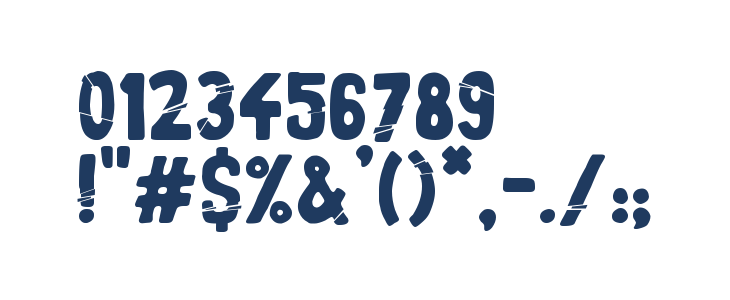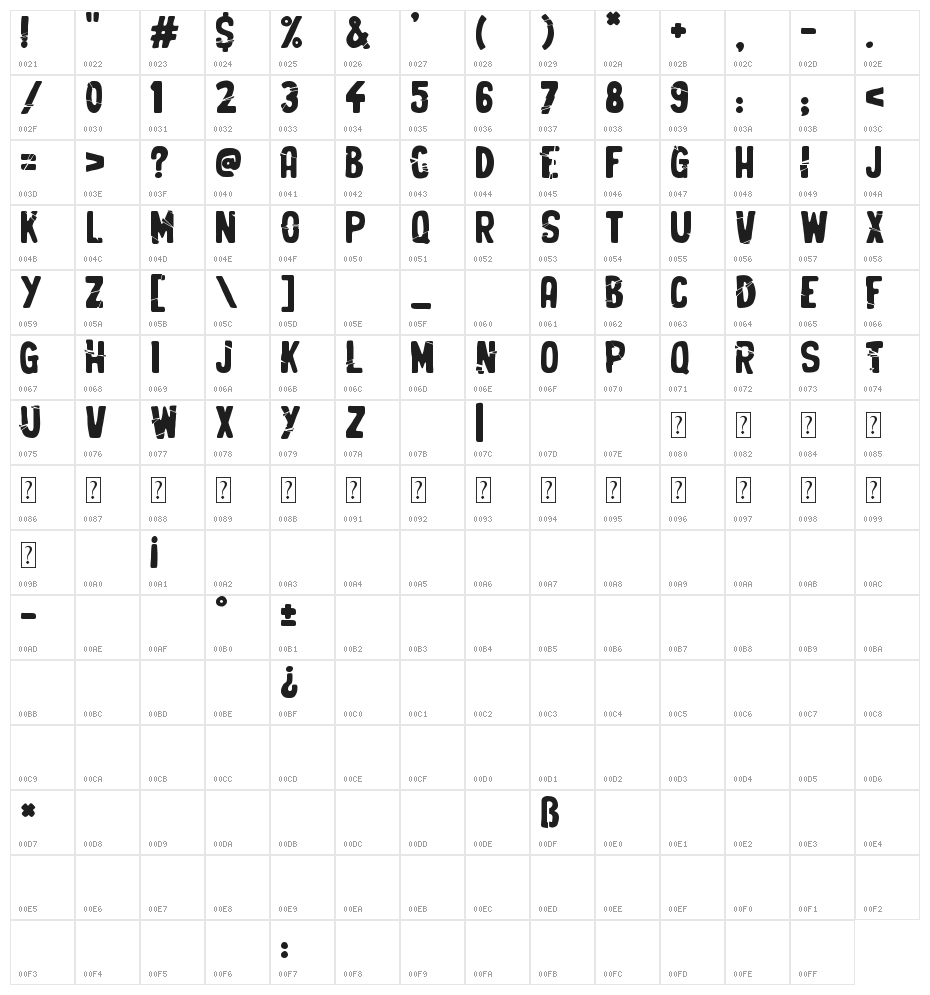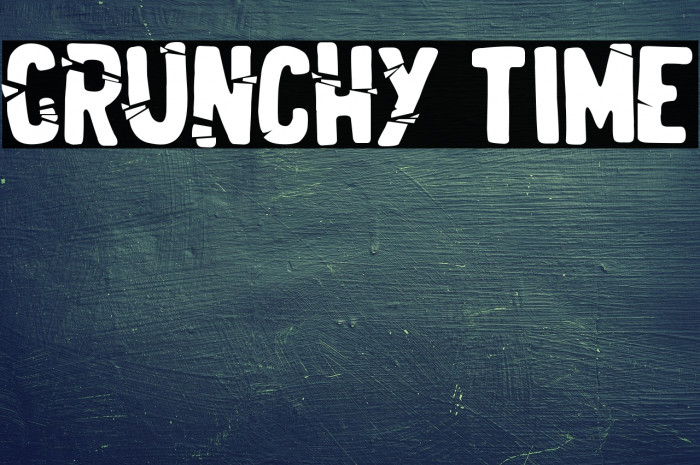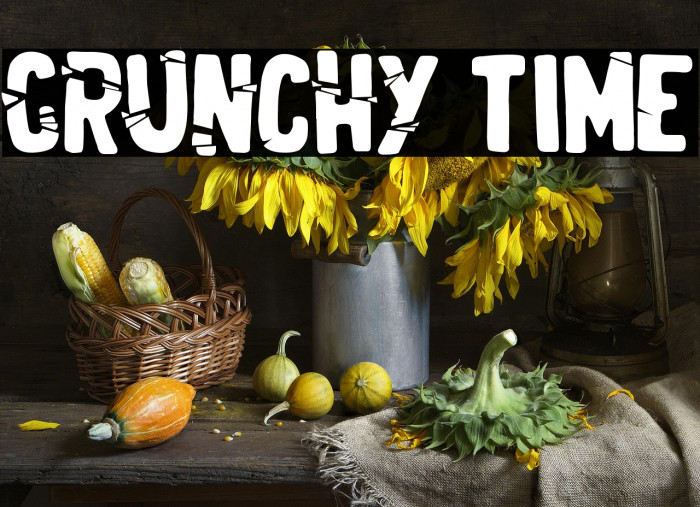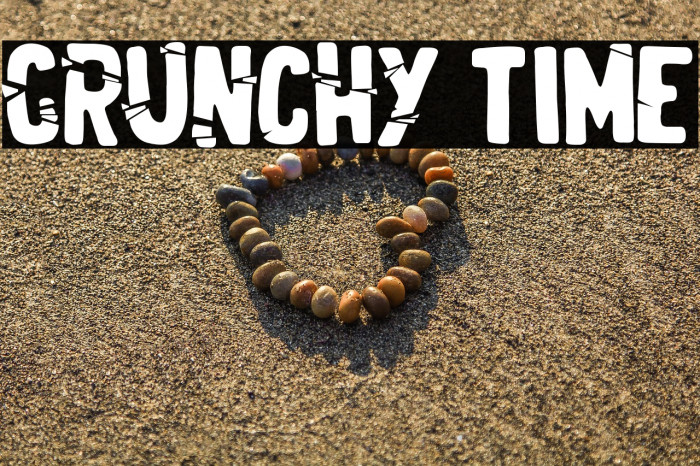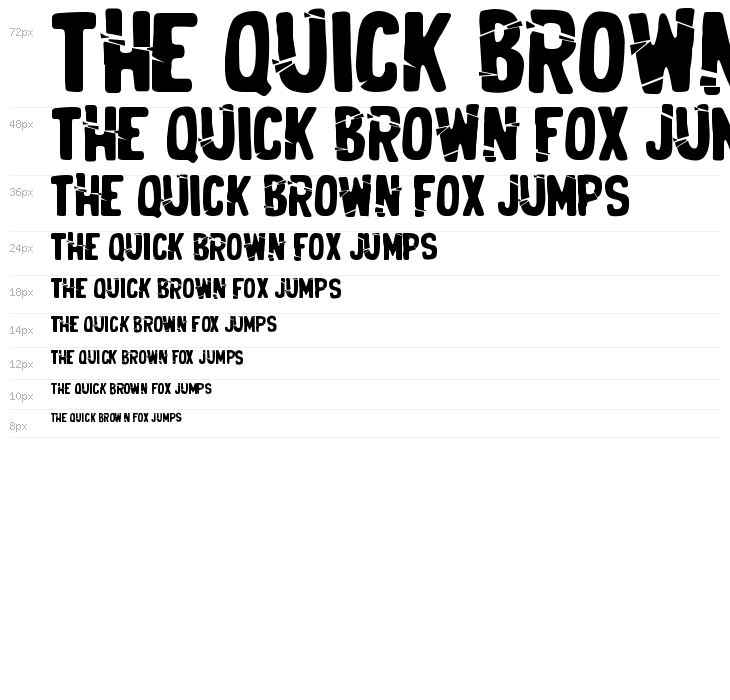
Crunchy Time Font
Crunchy Time Description
This font features a bold and playful design with a distressed, cracked effect running through each character, giving it a unique and edgy appearance. The uppercase and lowercase letters are consistent in style, maintaining a strong visual impact. The numbers and special characters follow the same design, ensuring uniformity across all elements. The font's bold weight and decorative style make it stand out, ideal for projects that require a strong visual presence. The character spacing is normal, allowing for readability while maintaining its distinctive look.
| Proposed Projects | Ideal for posters, album covers, branding, and any project needing a bold, edgy aesthetic. |